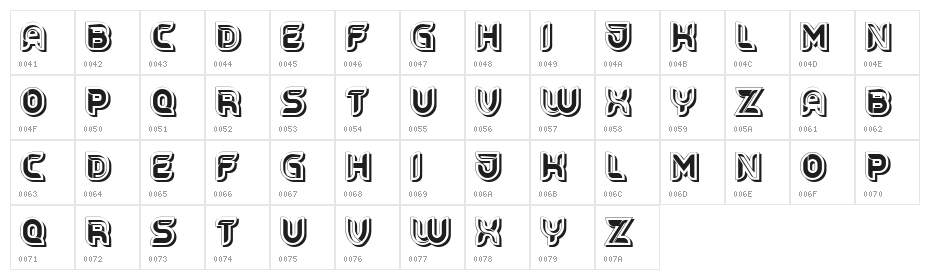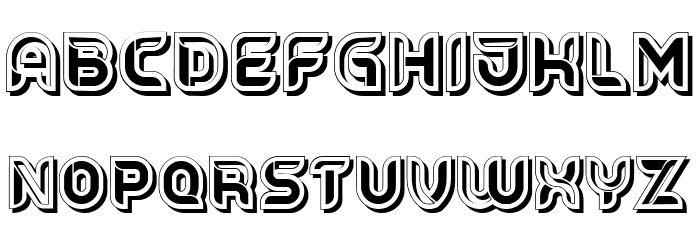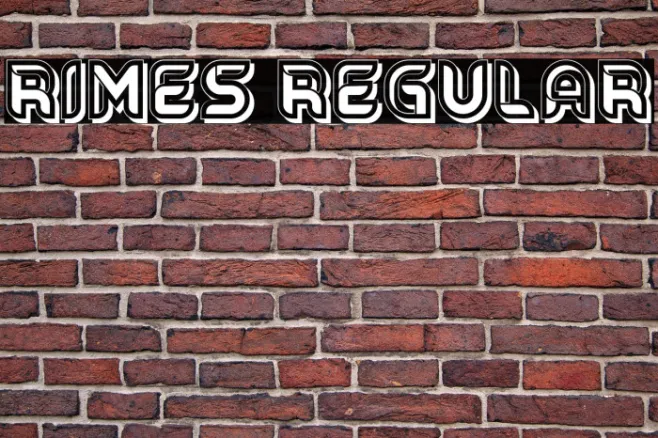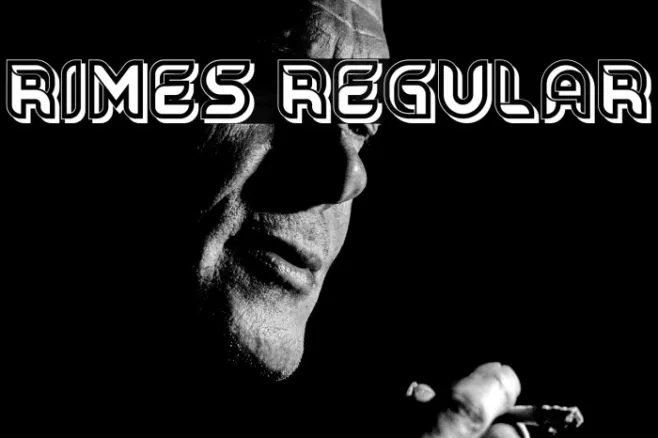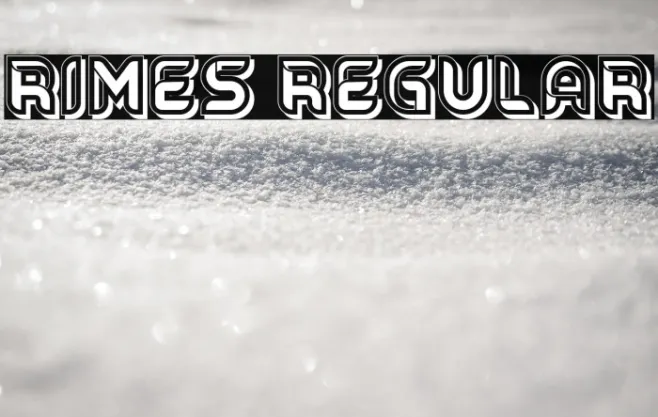
Rimes Regular Font
Rimes Regular Description
This font features a bold, three-dimensional design with a strong geometric structure. The letters are outlined with a thick black shadow, giving them a striking, layered appearance. The inner strokes are white, creating a high contrast that enhances readability and visual impact. The style is reminiscent of retro or vintage signage, making it ideal for projects that require a bold statement. Each character maintains a consistent width, contributing to a uniform and balanced look across the typeface.
| Proposed Projects | Ideal for posters, logos, headlines, and any design needing a vintage or retro flair. |